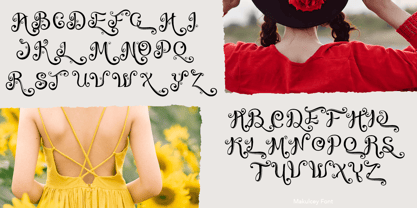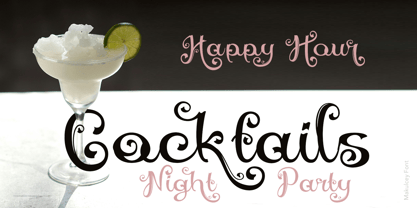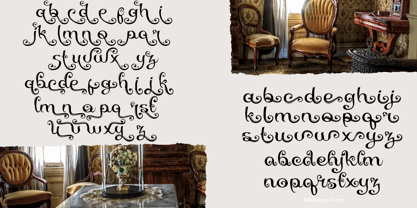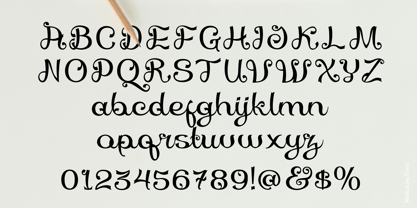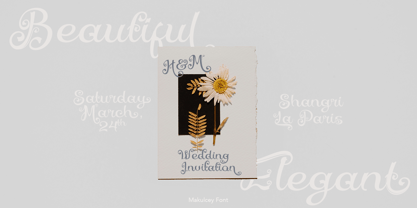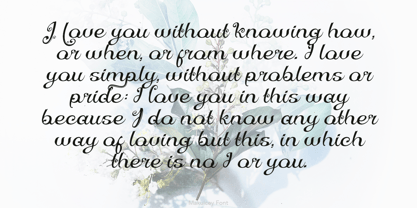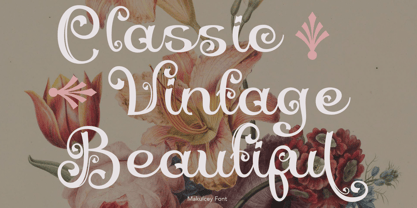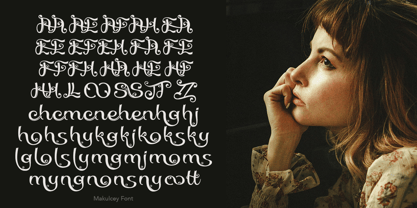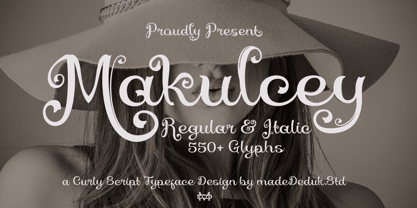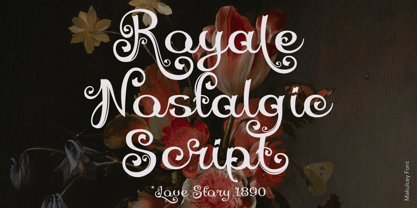
Makulcey
by madeDeduk
The Makulcey Font Family was designed by madededuk and published by madeDeduk. Makulcey contains 2 styles and family package options. More about this family
Makulcey is a classic script font comes with curly style with much alternative and ligature. This font is very perfect for many display purposes in your product design if you want to a modern vintage style look. Such as book covers, product labels, logos badges, drink bottles, tattoo shop, coffee shops, and many more.